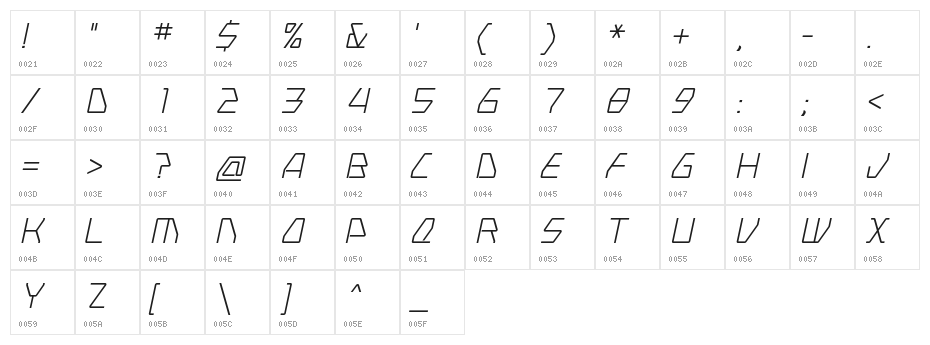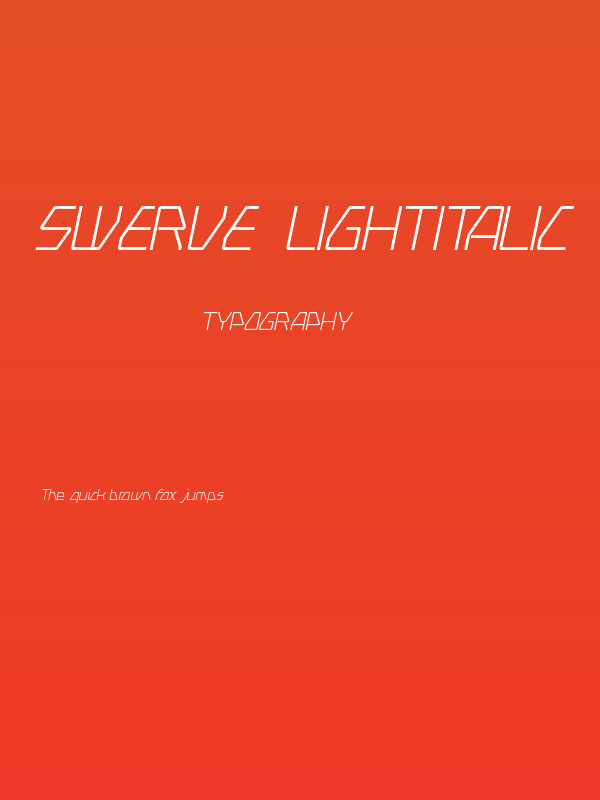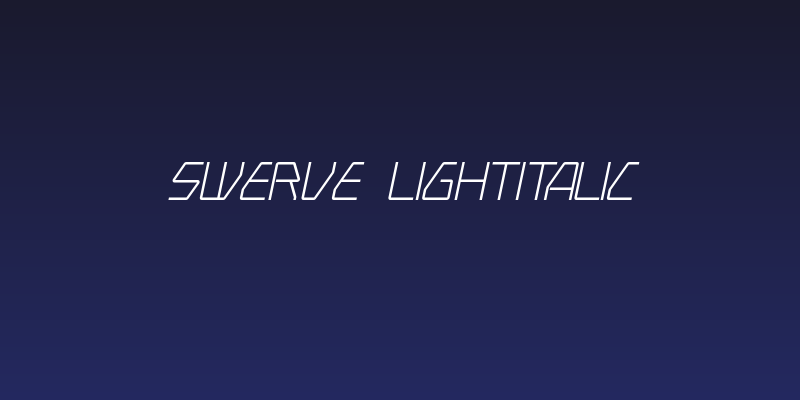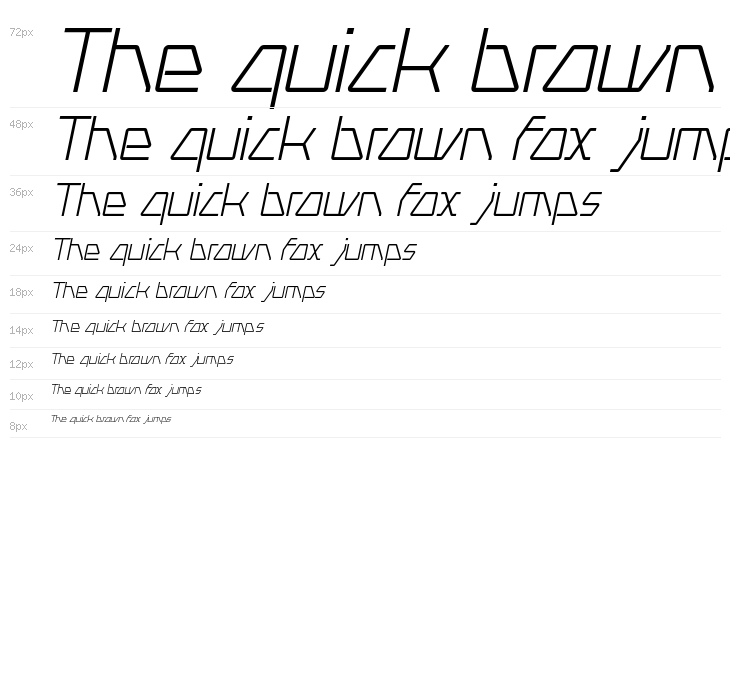
Swerve LightItalic Font
Swerve LightItalic Description
This font features a sleek, angular design with a futuristic and geometric aesthetic. The characters are composed of straight lines and sharp angles, giving it a modern and edgy appearance. The uppercase and lowercase letters maintain a consistent style, with a slight slant that adds dynamism and movement. The numerals and special characters follow the same design principles, ensuring uniformity across all glyphs. The font's unique structure makes it stand out, ideal for projects that require a contemporary and innovative look.
| Proposed Projects | Ideal for tech branding, modern posters, futuristic UI designs, and innovative product packaging. |